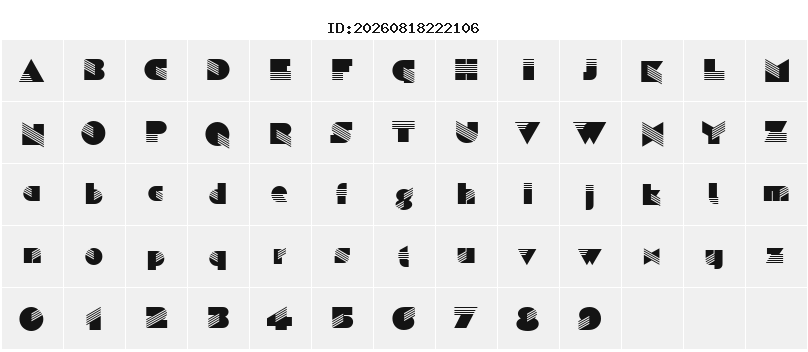
About SinaloaD.ttf
SinaloaD.ttf is a modern, elegant sans-serif font designed for ultimate readability and visual harmony. Perfect for branding, headlines, web design, and print materials.